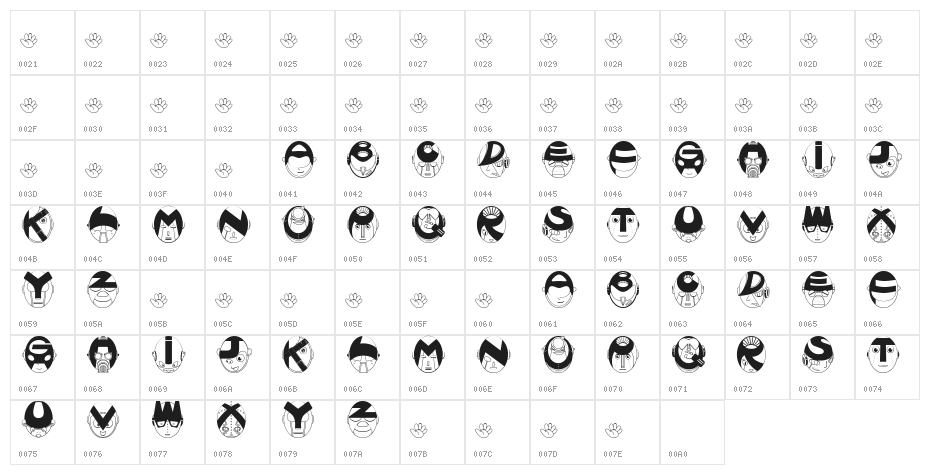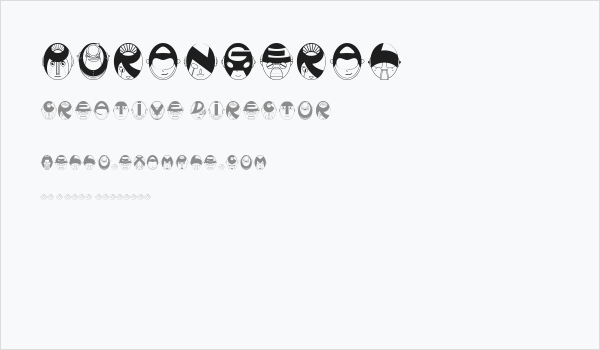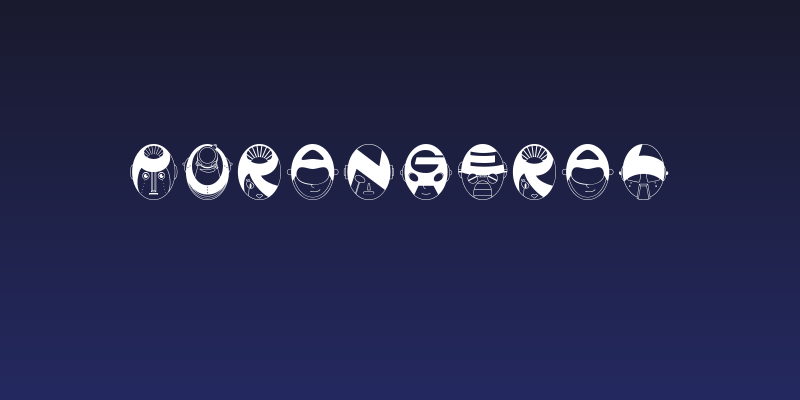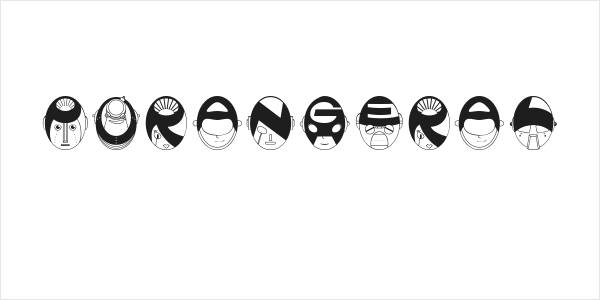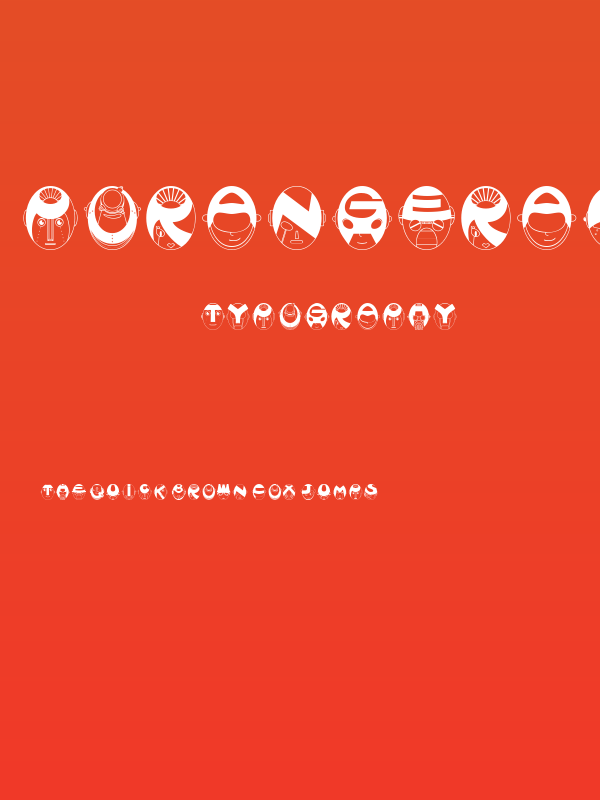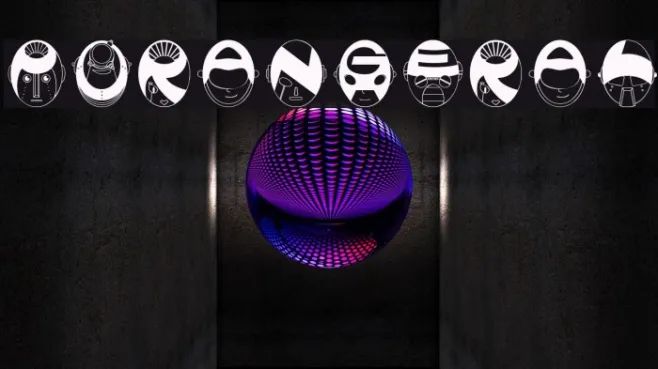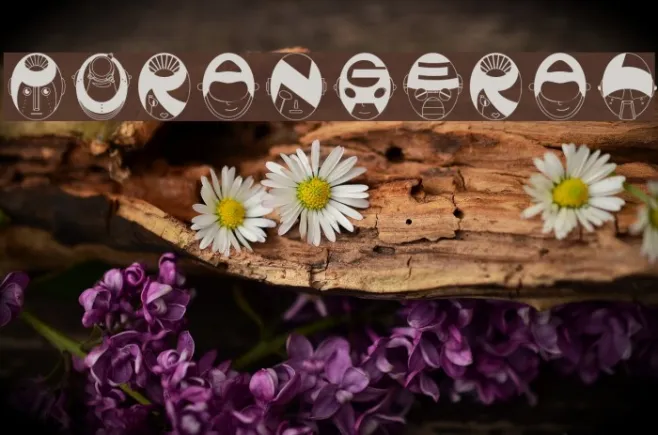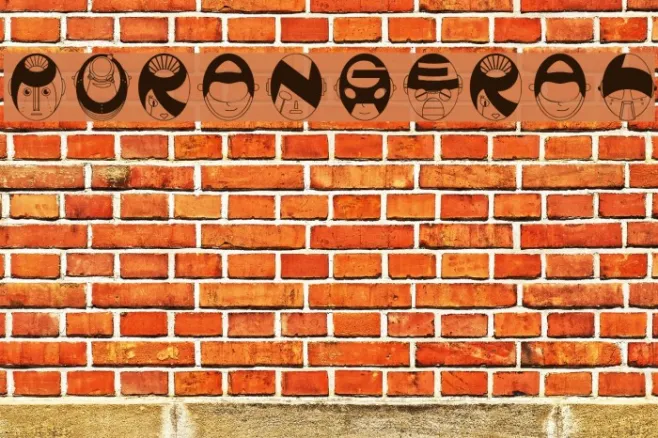
PorangerAL Font
PorangerAL Description
This font is a unique and playful decorative style where each letter is creatively integrated into a cartoonish face design. The characters are enclosed within oval shapes, each featuring distinct facial expressions and accessories, adding a whimsical and artistic touch. The design is consistent across both uppercase and lowercase letters, maintaining a uniform aesthetic that is both engaging and visually appealing. The font does not include traditional lowercase letters or numbers, focusing instead on its distinctive character illustrations.
| Proposed Projects | Ideal for children's books, playful branding, creative posters, and unique invitations. |